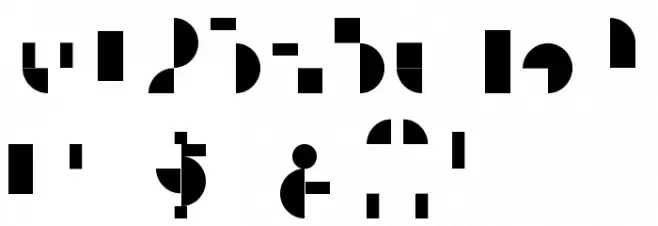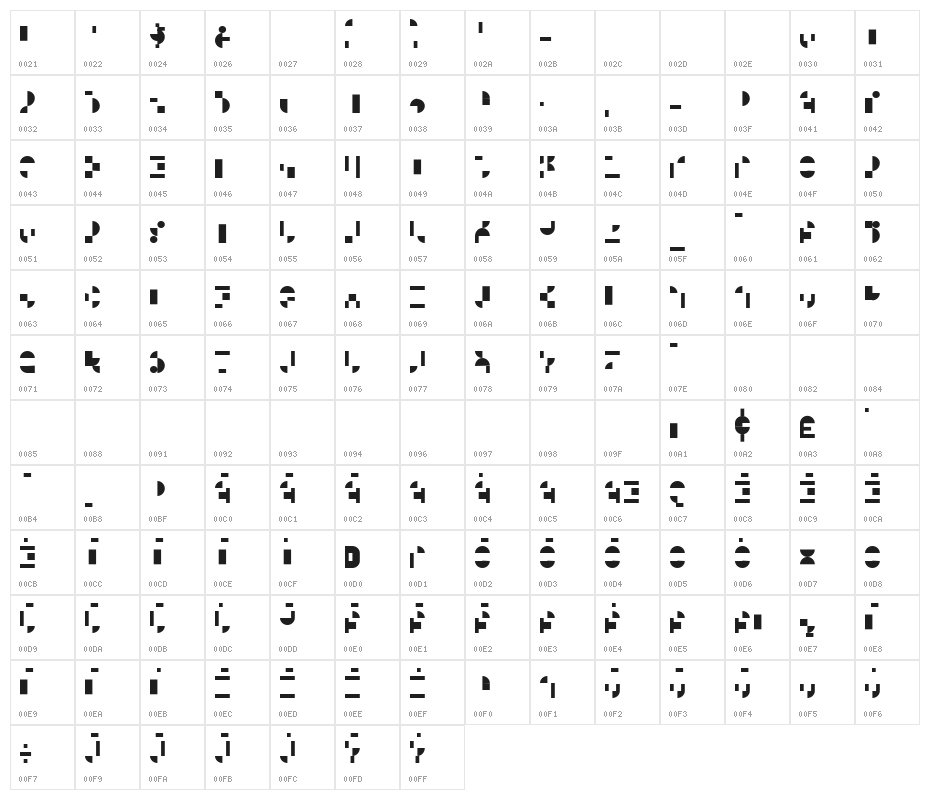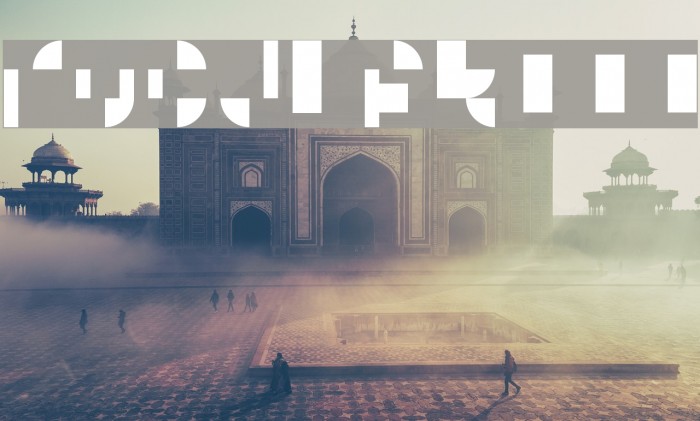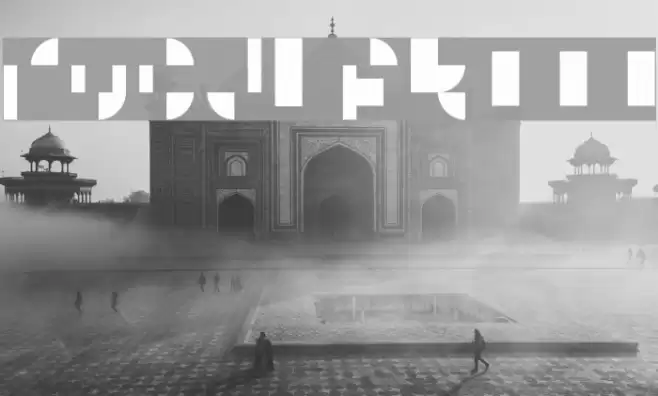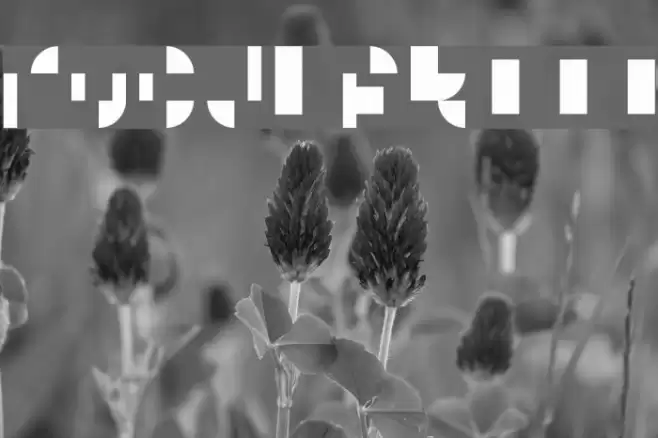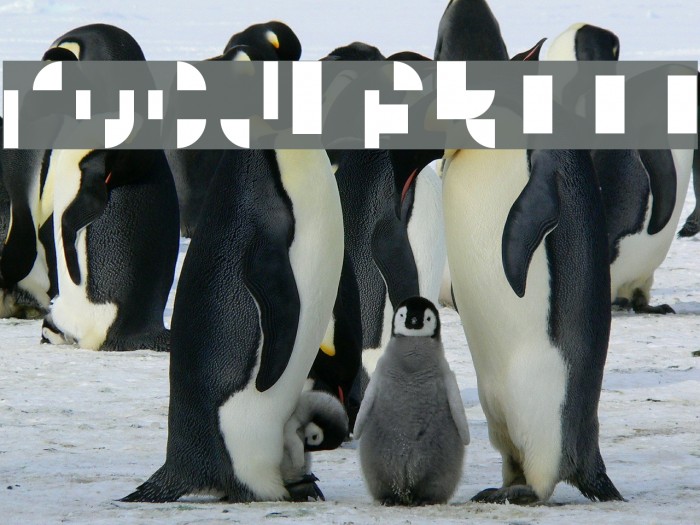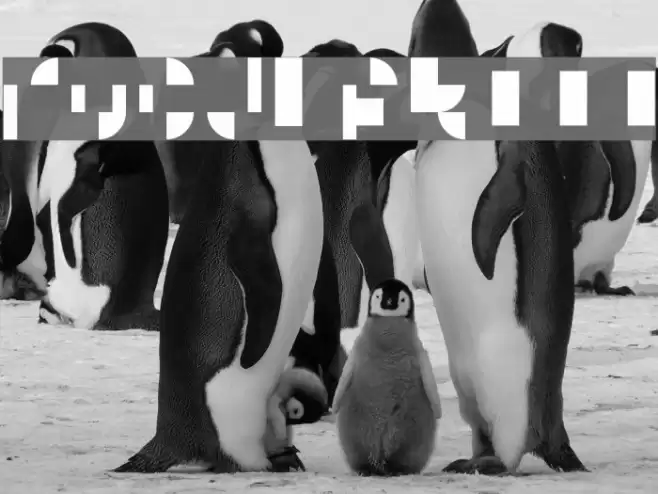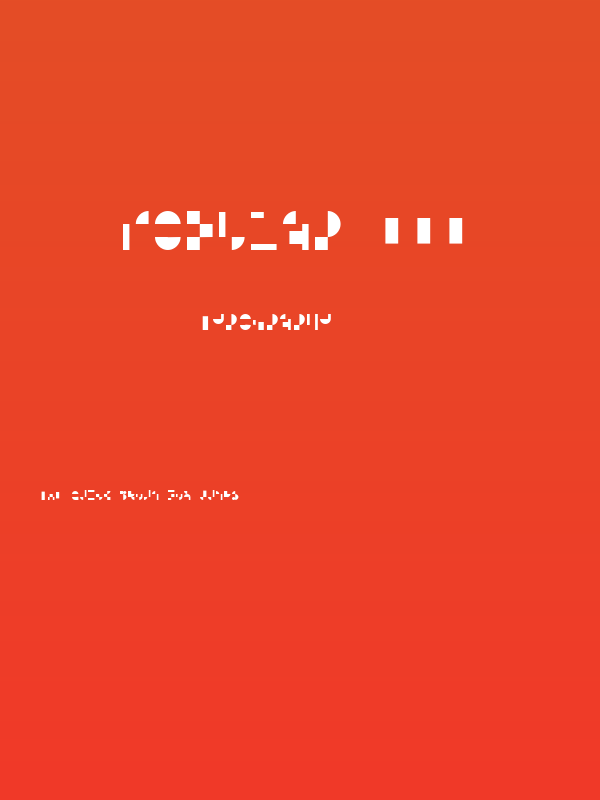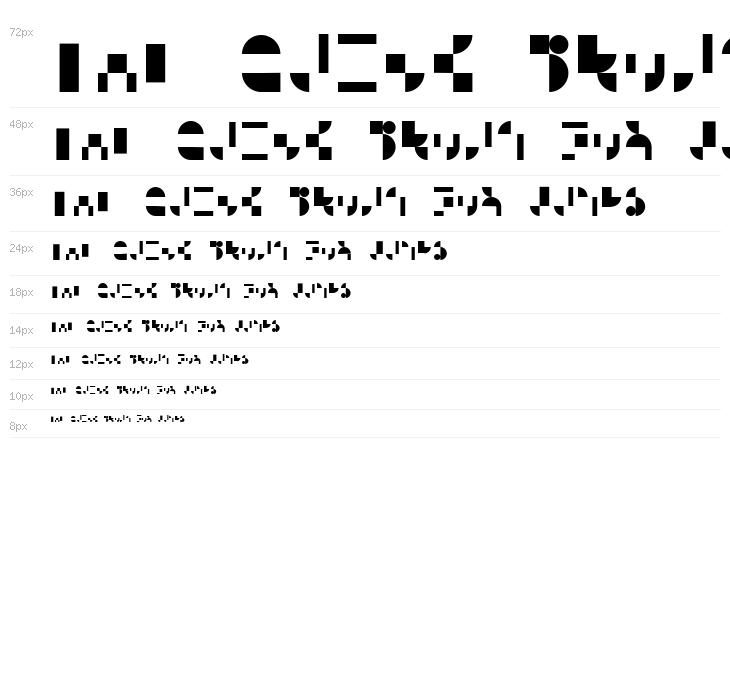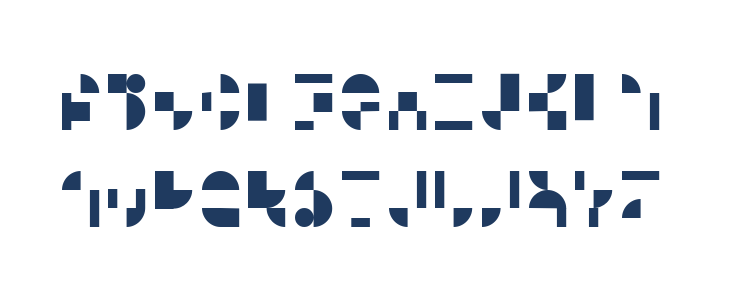
Modular III Font
Modular III Description
This font features a highly geometric and modular design, characterized by its use of basic shapes such as circles, squares, and rectangles to form each character. The letters are abstract and stylized, creating a futuristic and avant-garde appearance. The font lacks traditional serifs and instead relies on its bold, block-like structure to convey a sense of modernity and innovation. The characters are uniformly thick, with minimal variation in stroke width, contributing to a cohesive and uniform look. This font is ideal for projects that require a unique and eye-catching typeface, such as digital art, posters, and branding for tech companies.
| Use Case | Logos, Headlines |
| Proposed Projects | Ideal for digital art, tech branding, and modern posters. |